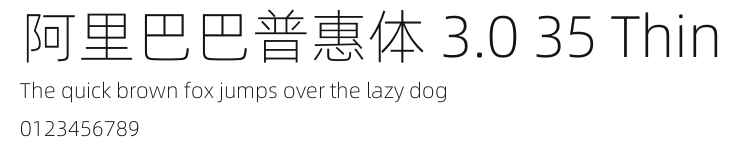
阿里巴巴普惠体 3.0 35 Thin Preview
• Designer: Alibaba Design
• Manufacturer: Alibaba Design;汉仪字库
About 阿里巴巴普惠体 3.0 35 Thin.otf
阿里巴巴普惠体 3.0 35 Thin.otf is a modern, elegant sans-serif font designed for ultimate readability and visual harmony. Perfect for branding, headlines, web design, and print materials.